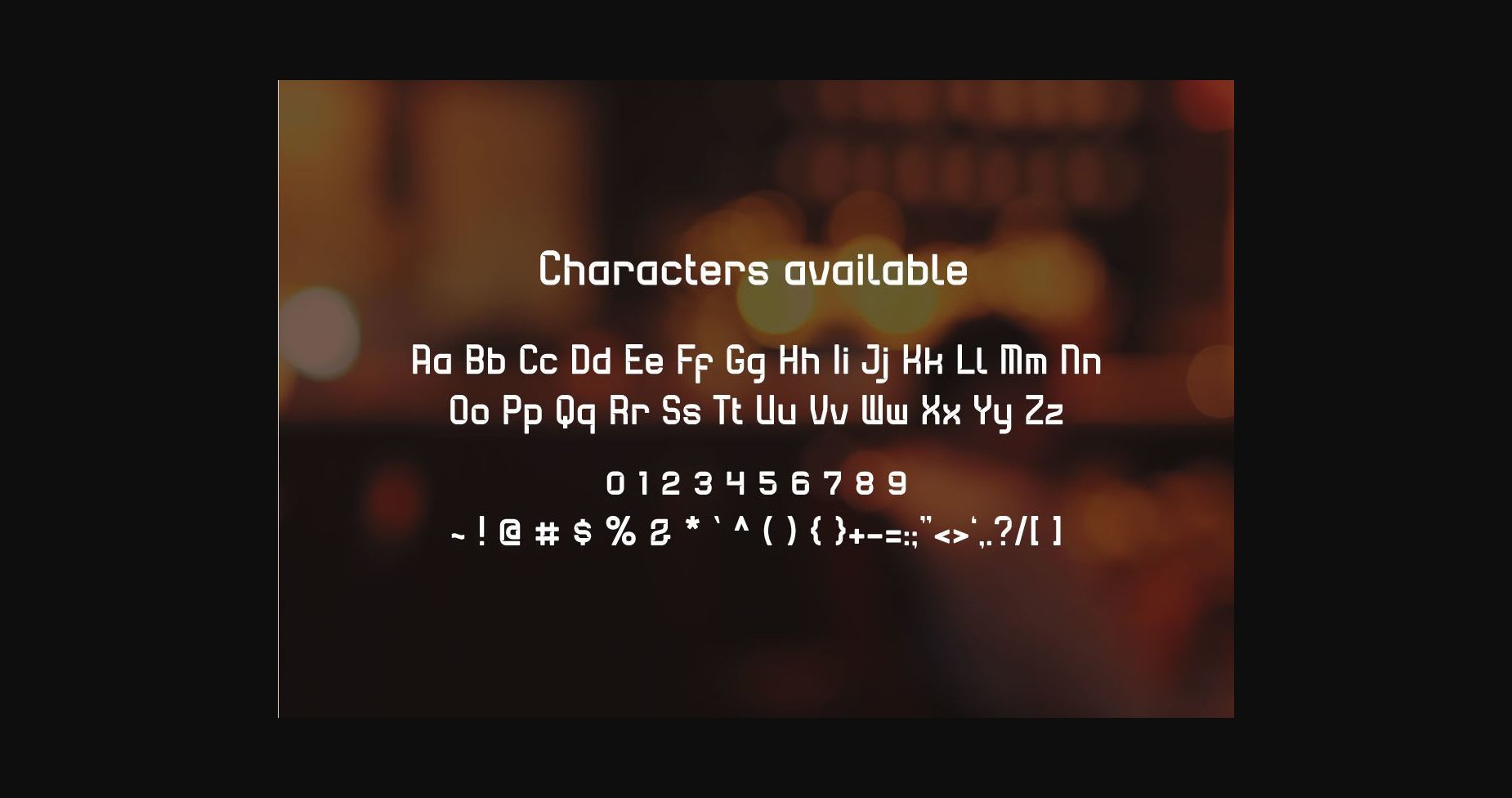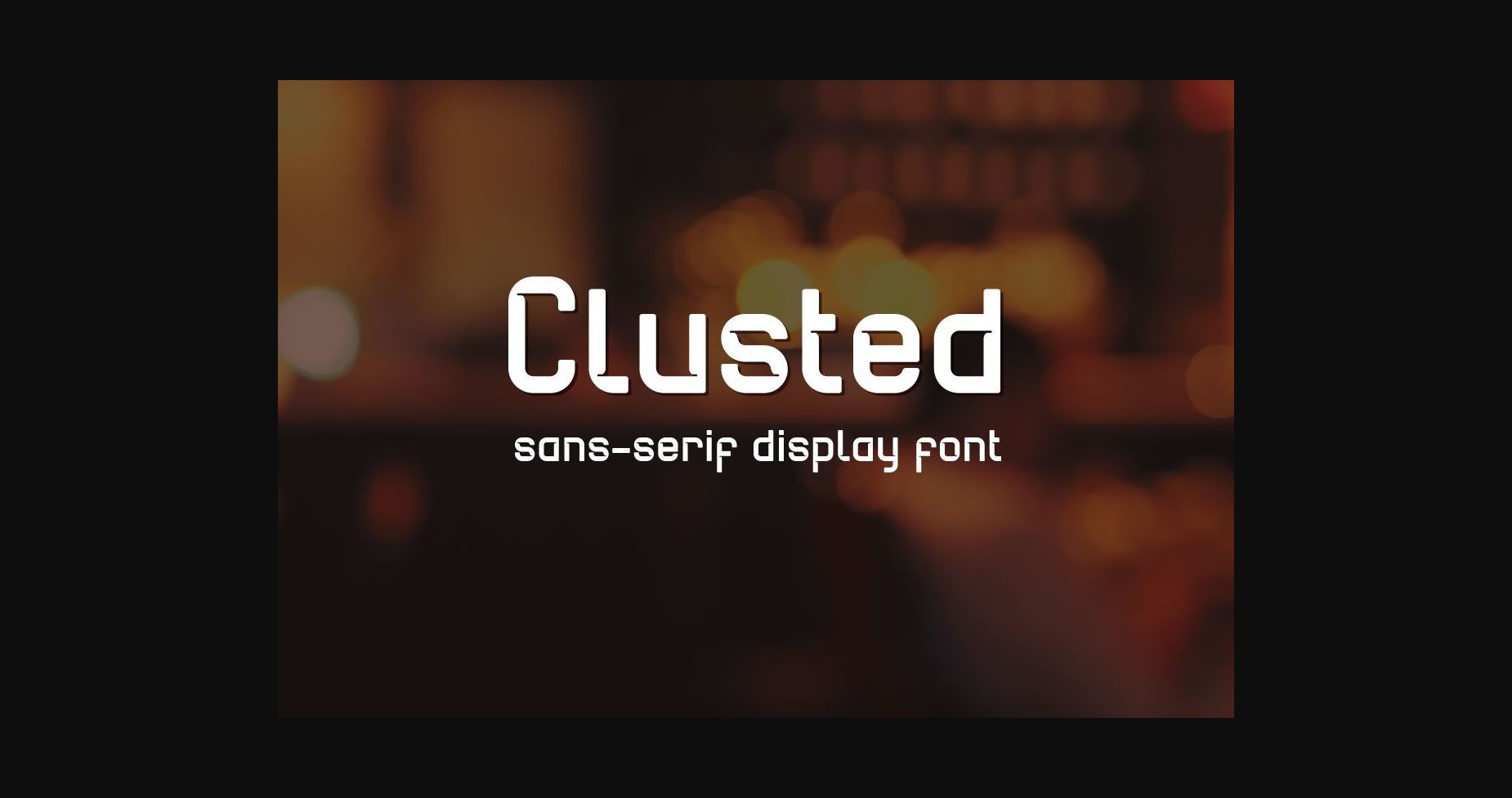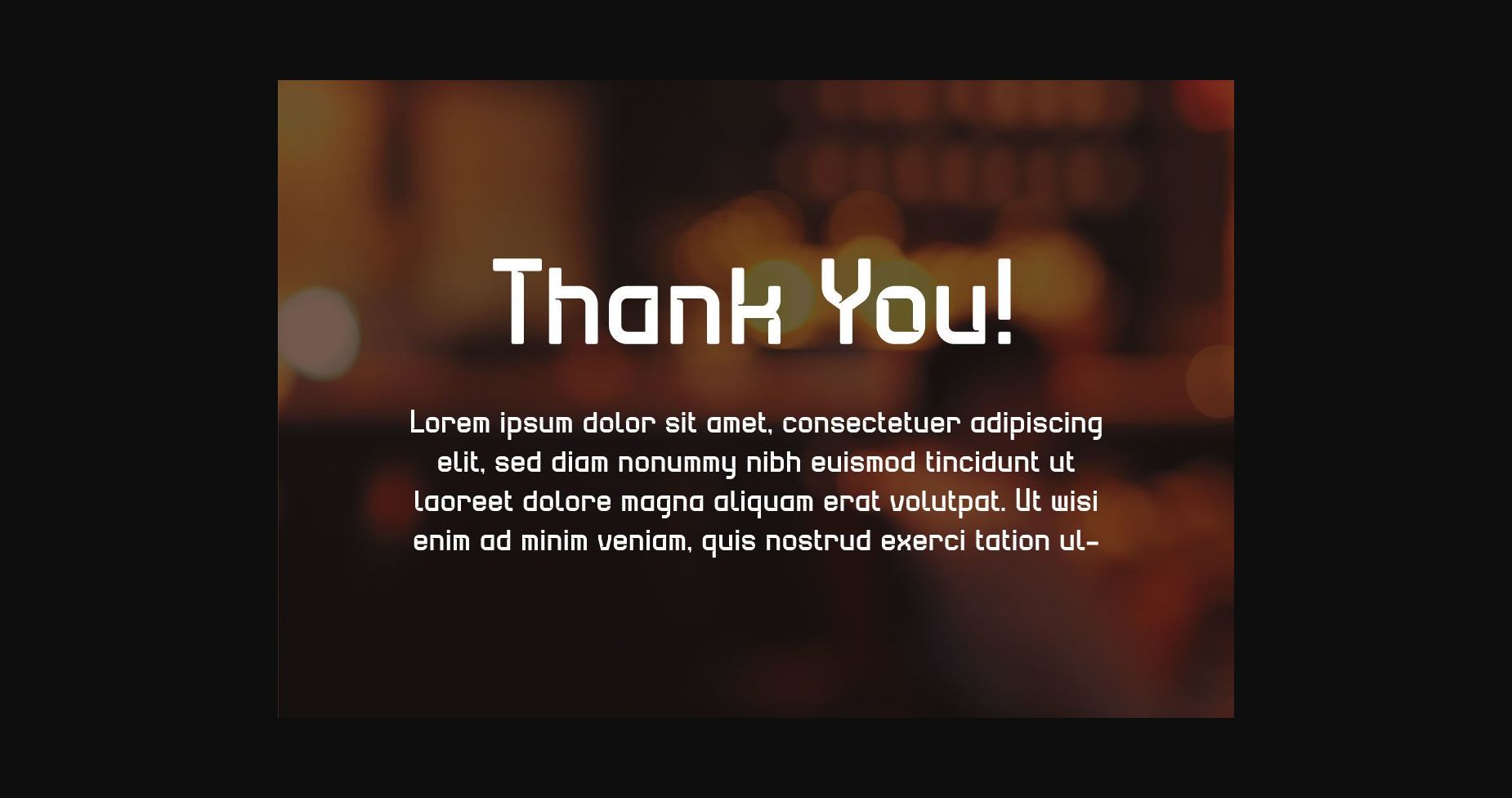
About Clusted Font
Clusted is a modern and straightforward sans-serif display font. It perfectly suits multiple projects such as cards, book titles, news headlines, banners, flyers, stationery and many more. It also can be used in any scale work.